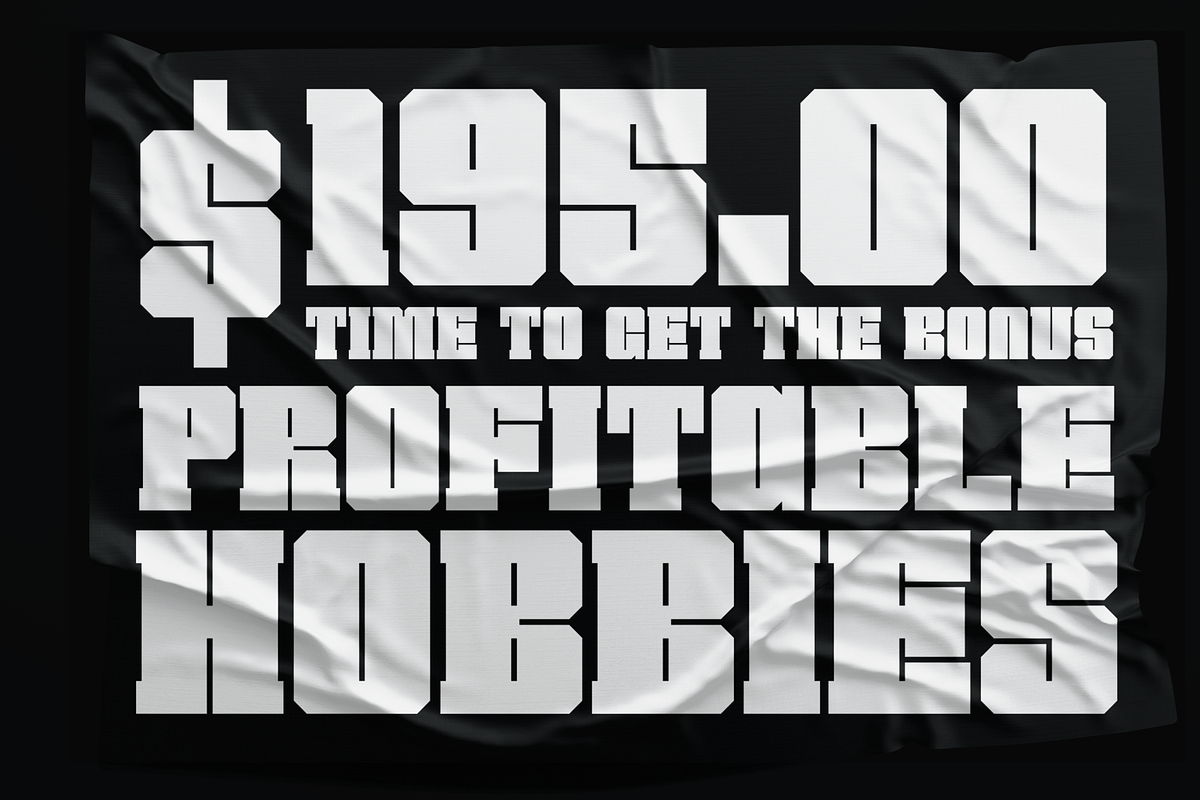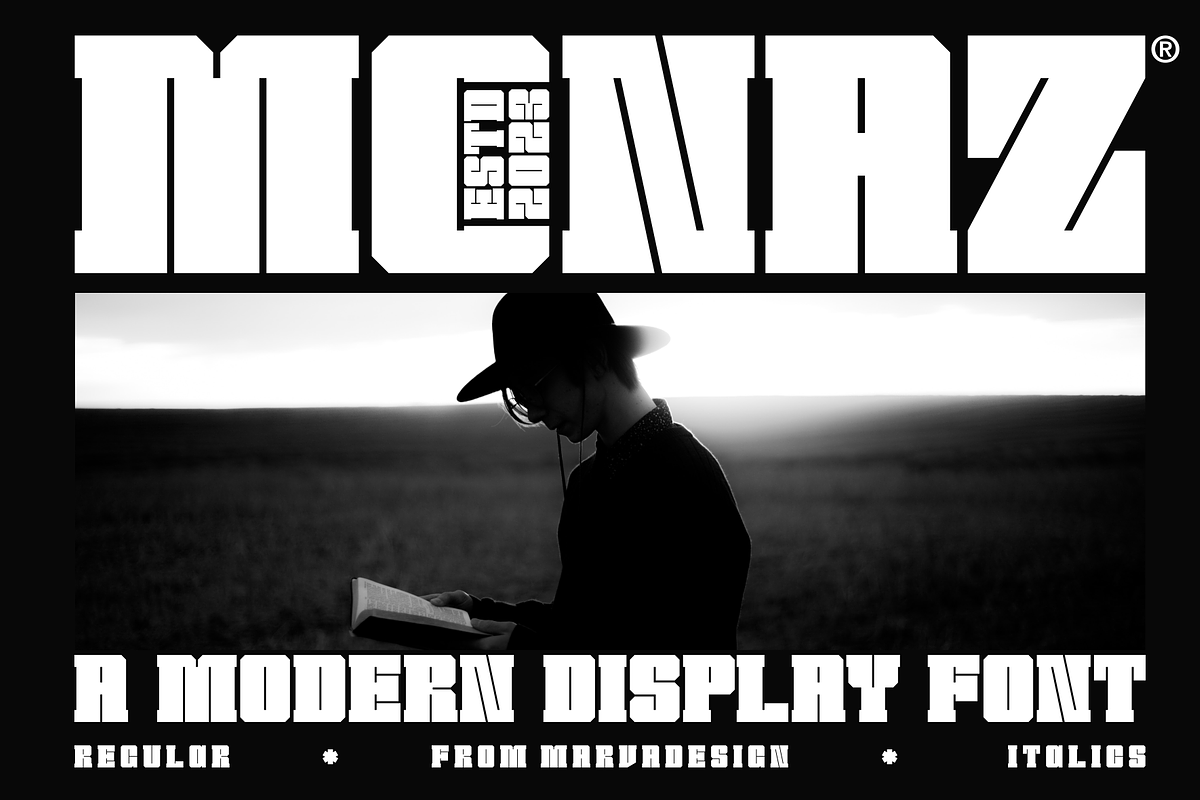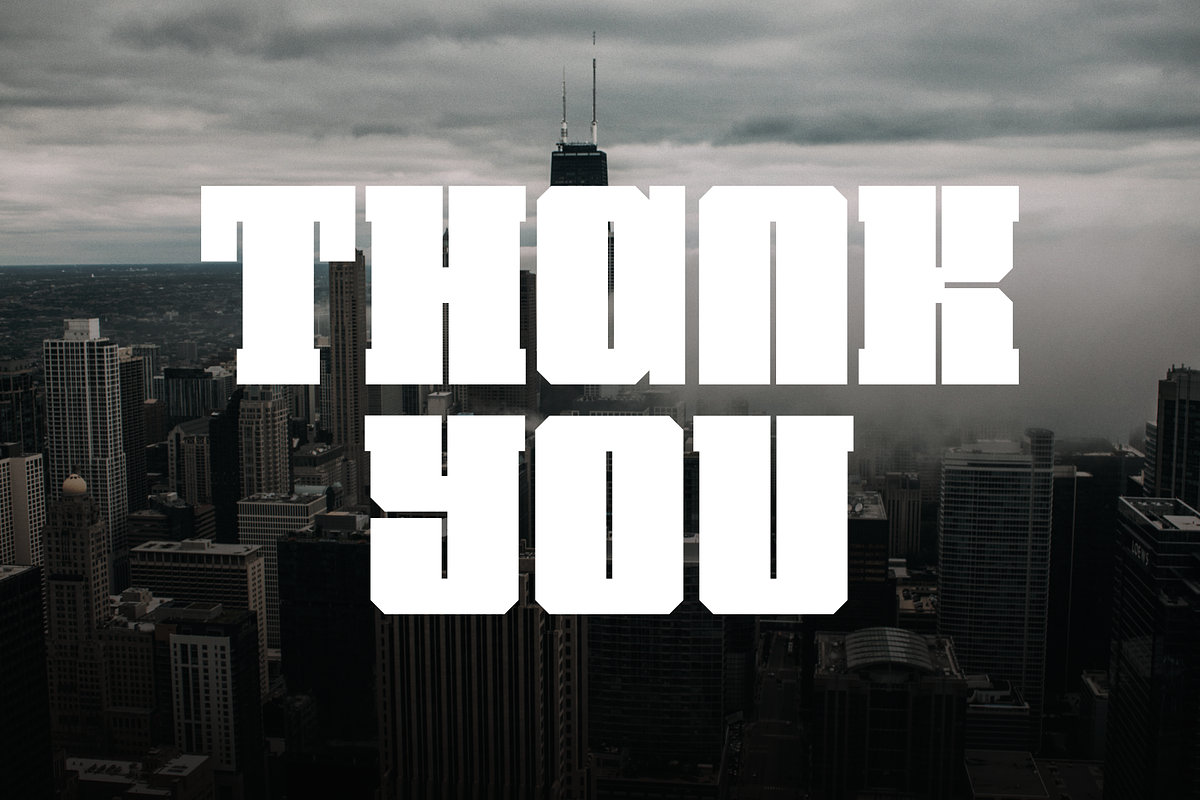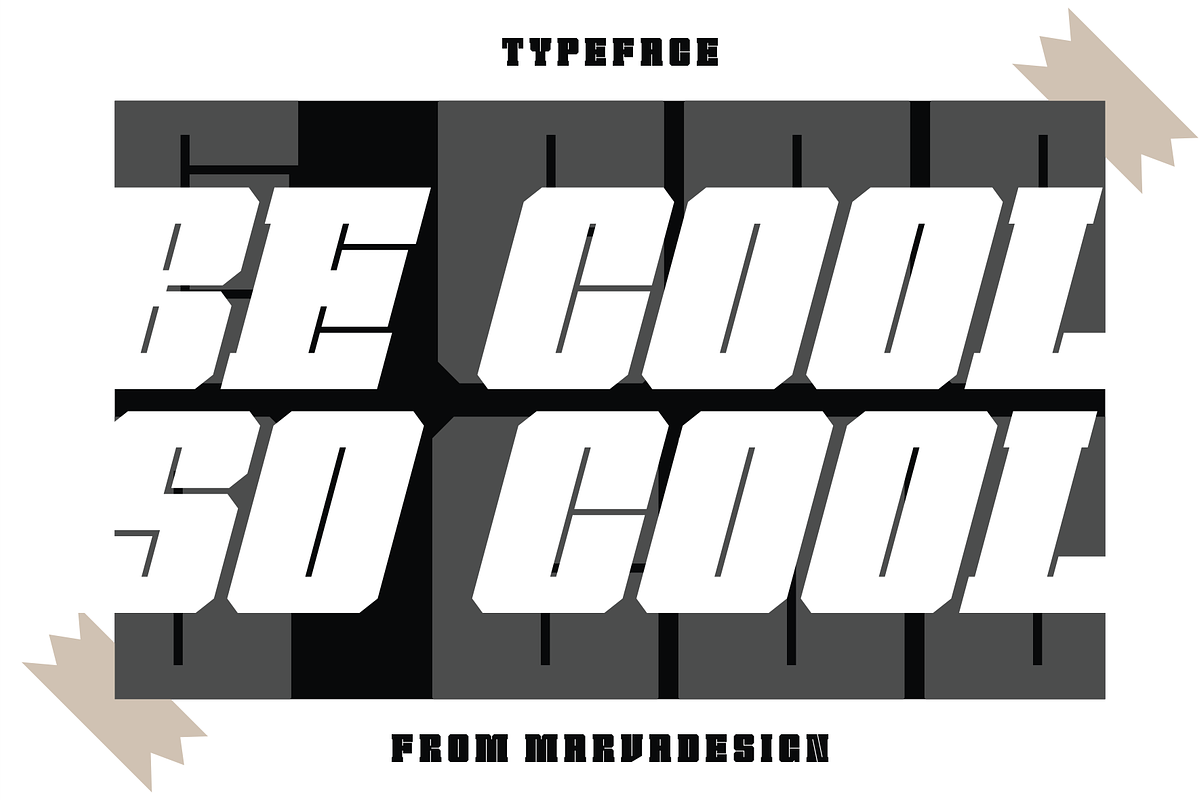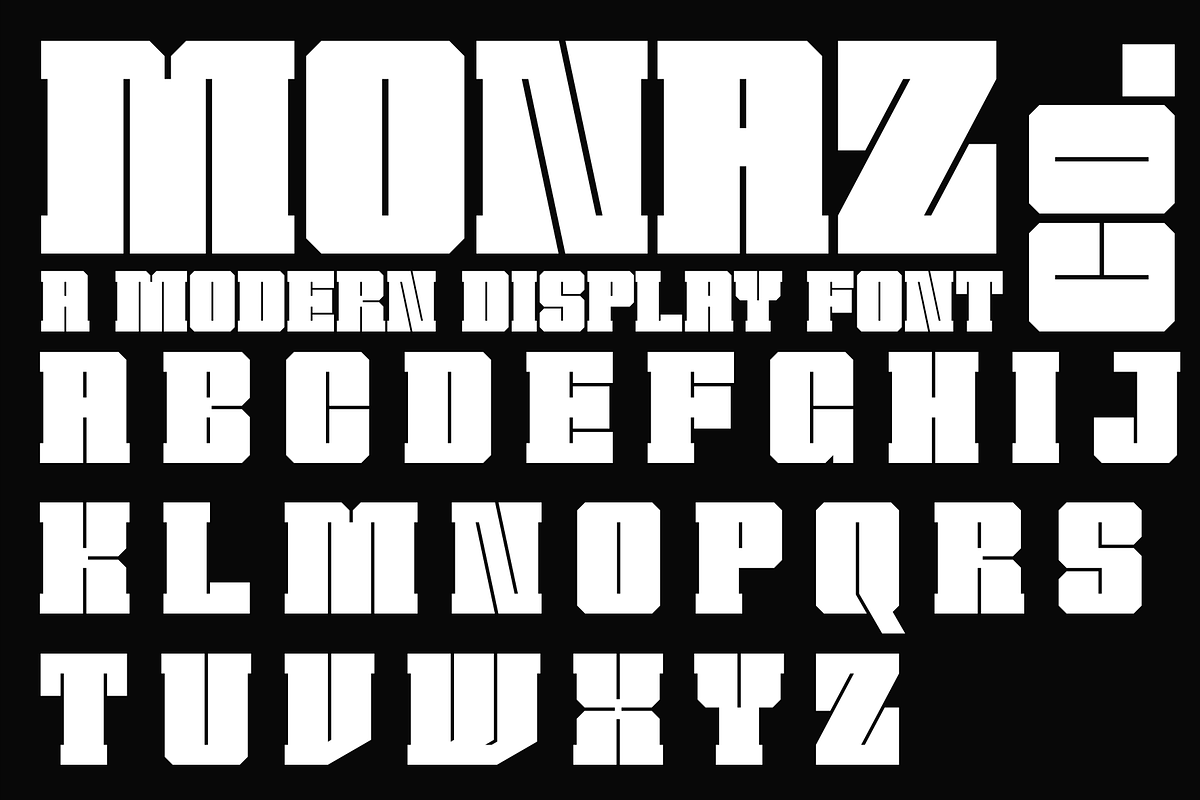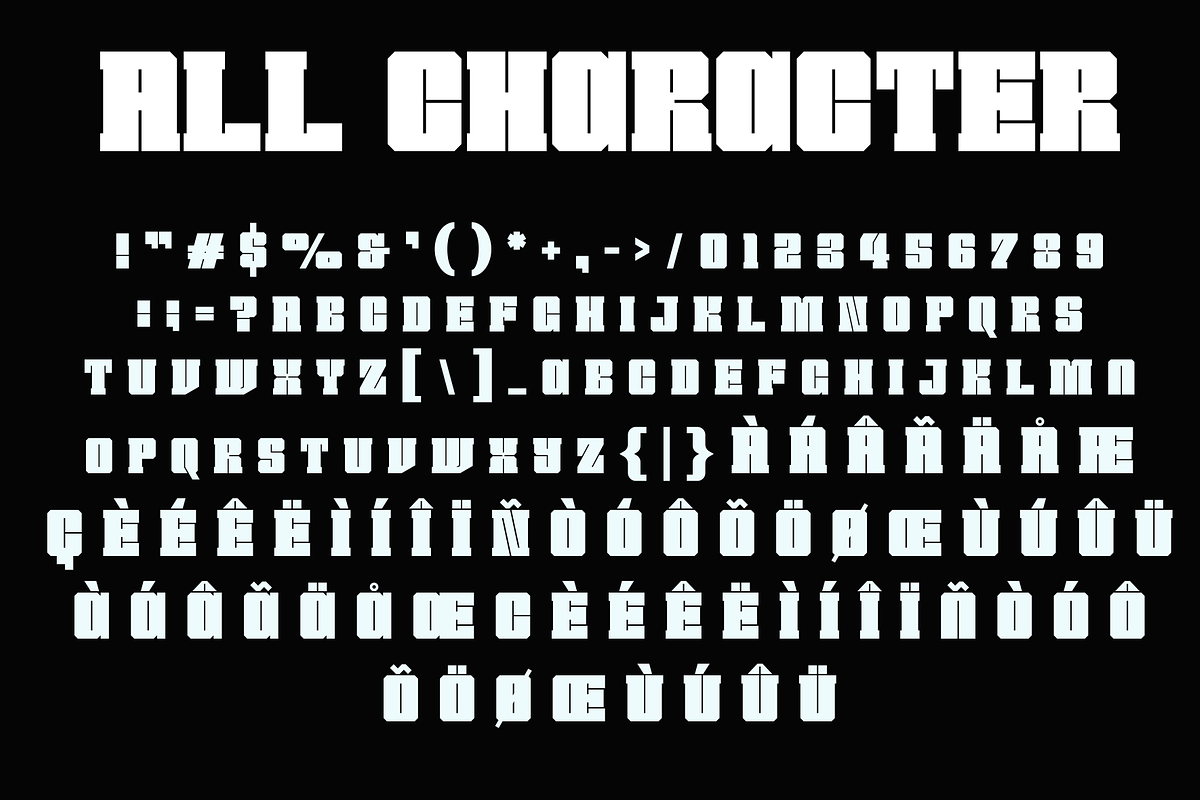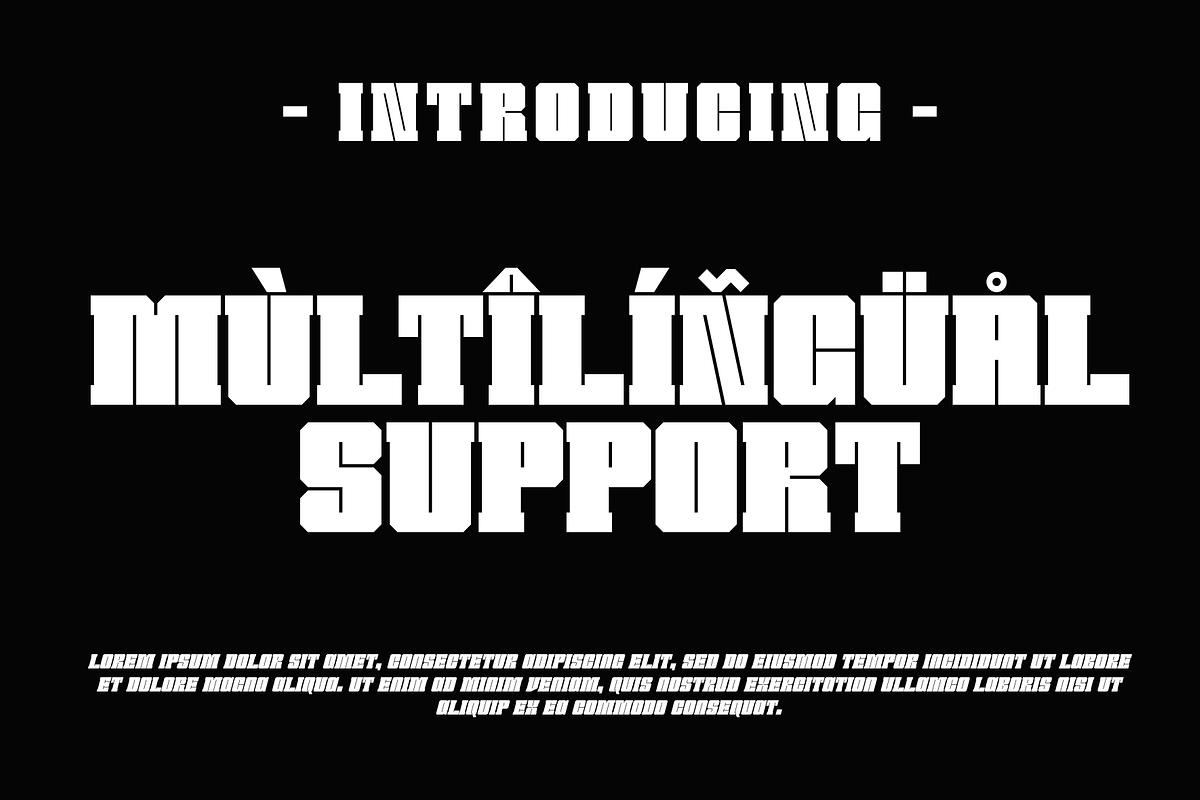
Monaz - A Modern Display Font
Introducing our new product Monaz Font - Modern Font is a bold and authentic display font. The font is suitable for any branding project like logo, Template Design, Product and many more. outstanding in a wide range of contexts.